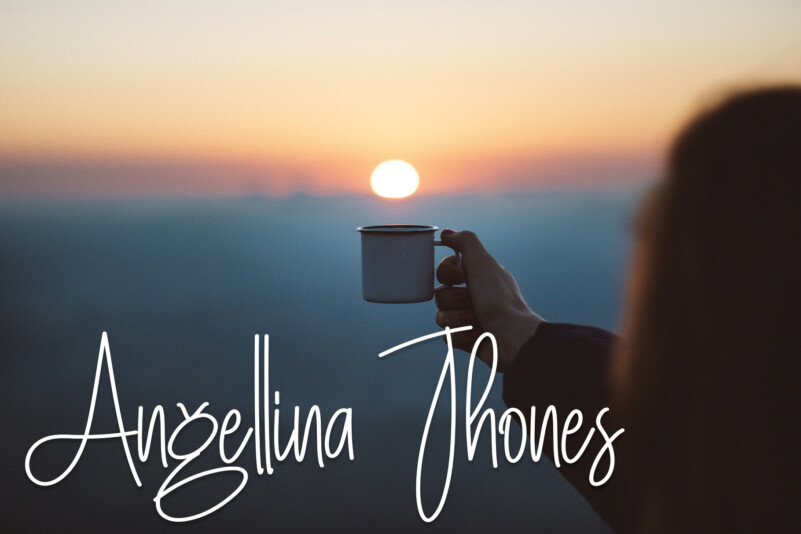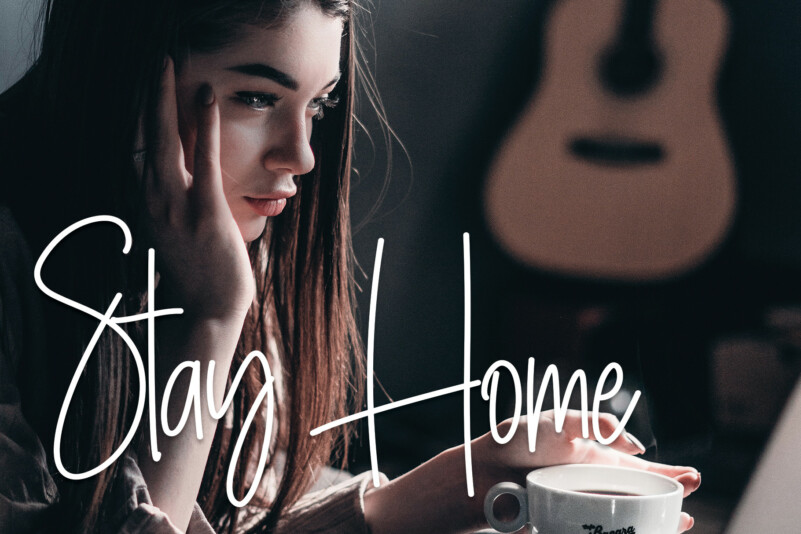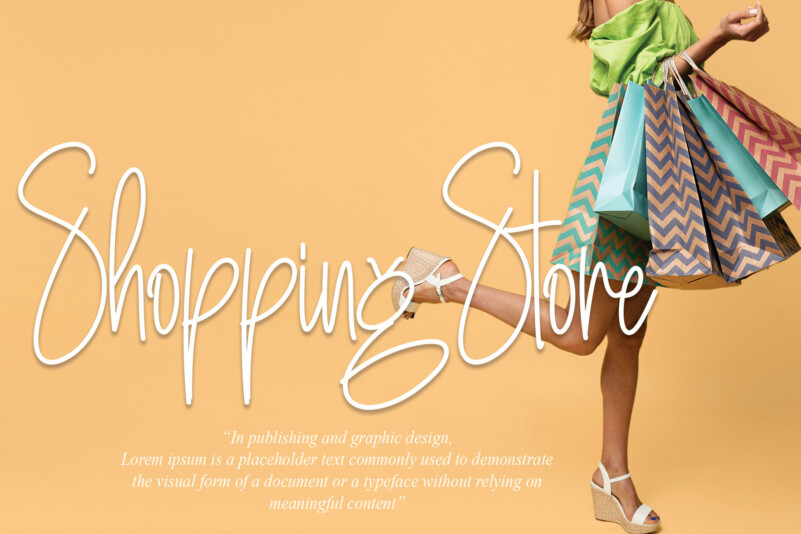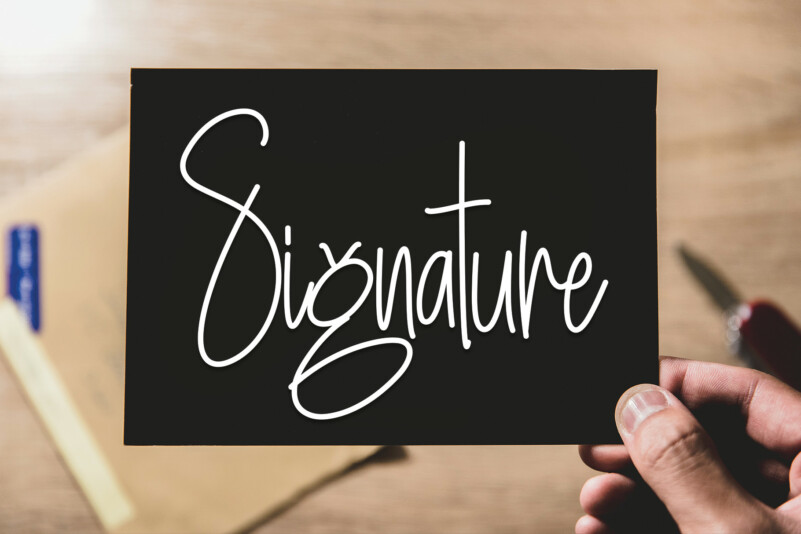
Commingsoon Handwritten Font
Commingsoon Handwritten Font is a delicate, thin-lettered handwritten font. It has beautiful and well-balanced characters and as a result, it matches a wide pool of designs.